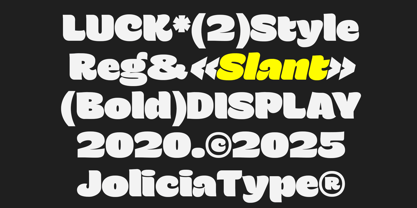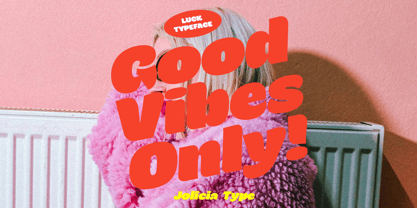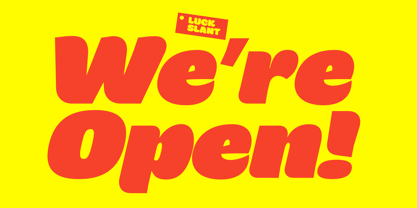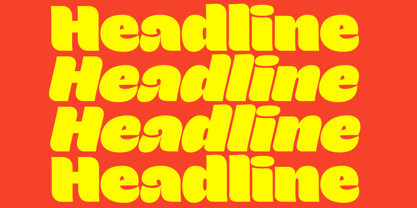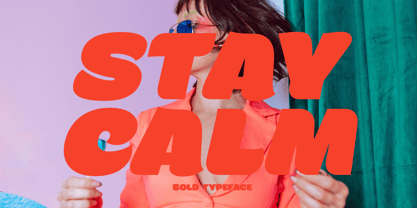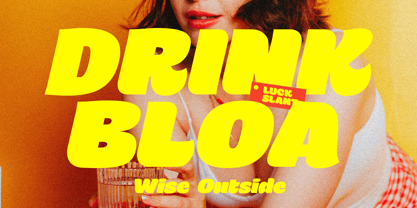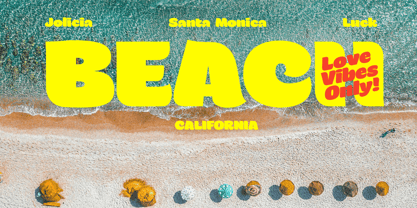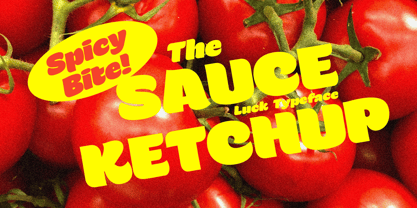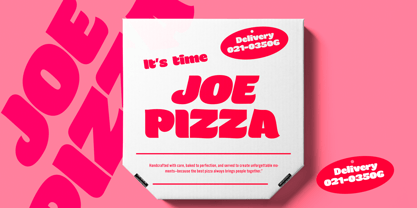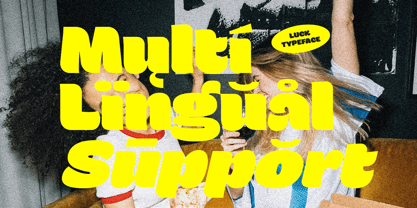
Luck
by Jolicia Type
The Luck Font Family was designed by Laire Banyu, Dyaharum Pungki Revitasari and published by Jolicia Type. Luck contains 2 styles and family package options. More about this family
Step into the retro era with Luck, a bold display typeface that blends groovy curves, funky energy, and vintage charm. Designed to stand out, Luck brings a playful yet powerful personality to your projects—perfect for headlines, posters, logos, and any design that craves a nostalgic touch.
Available in two expressive styles: Upright and Slant, Luck gives you flexibility to experiment with a steady retro stance or a dynamic, forward-leaning vibe. Its chunky letterforms and rhythmic flow make it the ideal choice for designers who want to capture the vibrant spirit of the ’70s while keeping it bold and modern.
Bring good vibes and funky flair to your work—because with Luck, every design shines brighter.